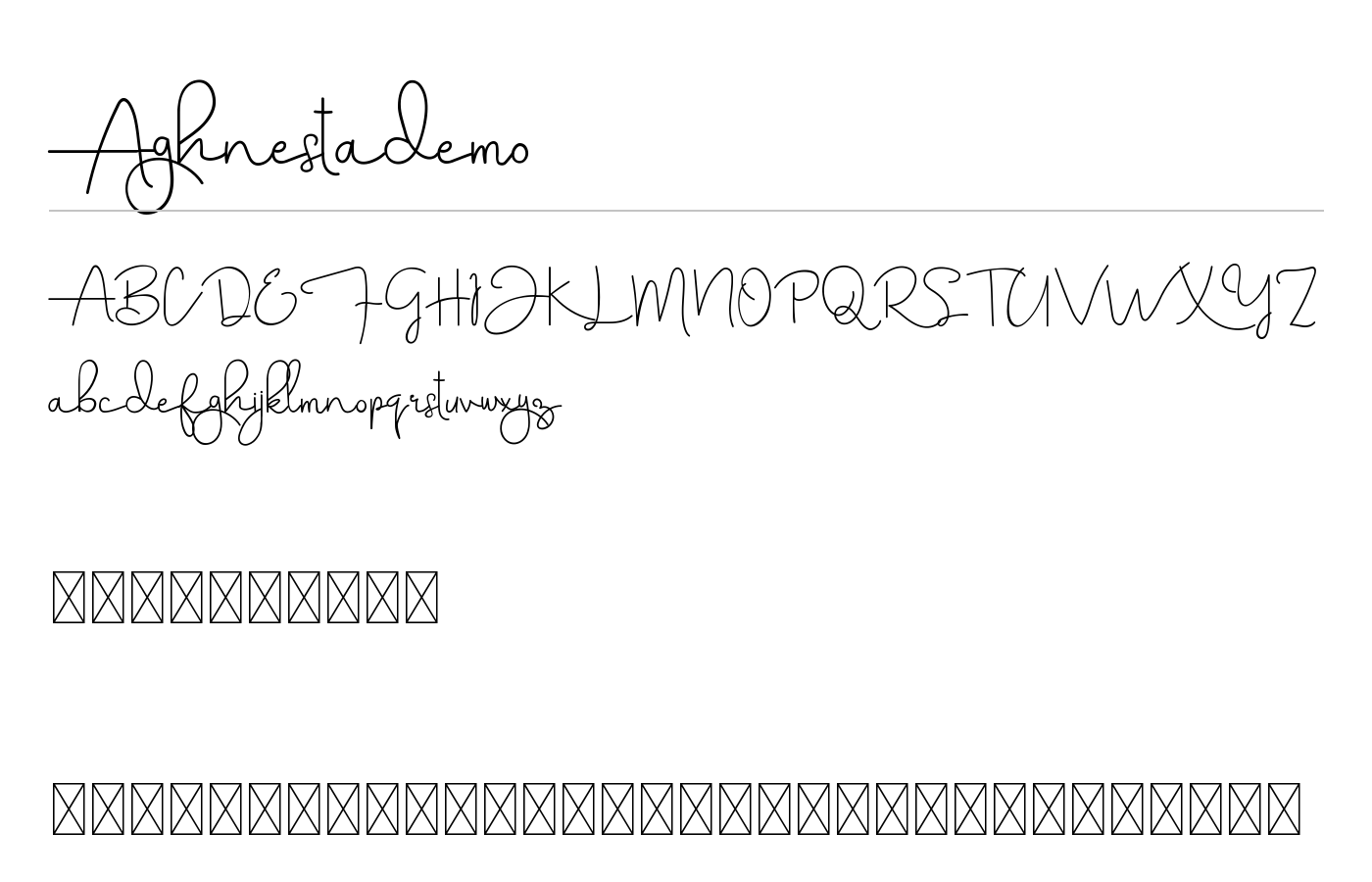
Aghnestademo is a delicate, handwritten script font characterized by its thin, flowing lines and whimsical letterforms that combine elegance with a playful touch. Its high, airy x-height and organic curves make it ideal for invitations, personal branding, and creative projects where a light, artistic feel is desired. This font works best in display settings where its unique personality can shine in headlines or logos rather than dense body text.
Aghnestademo Font
About Aghnestademo Font
| Font family | Aghnestademo Font |
| Designer | saila nurissalma |